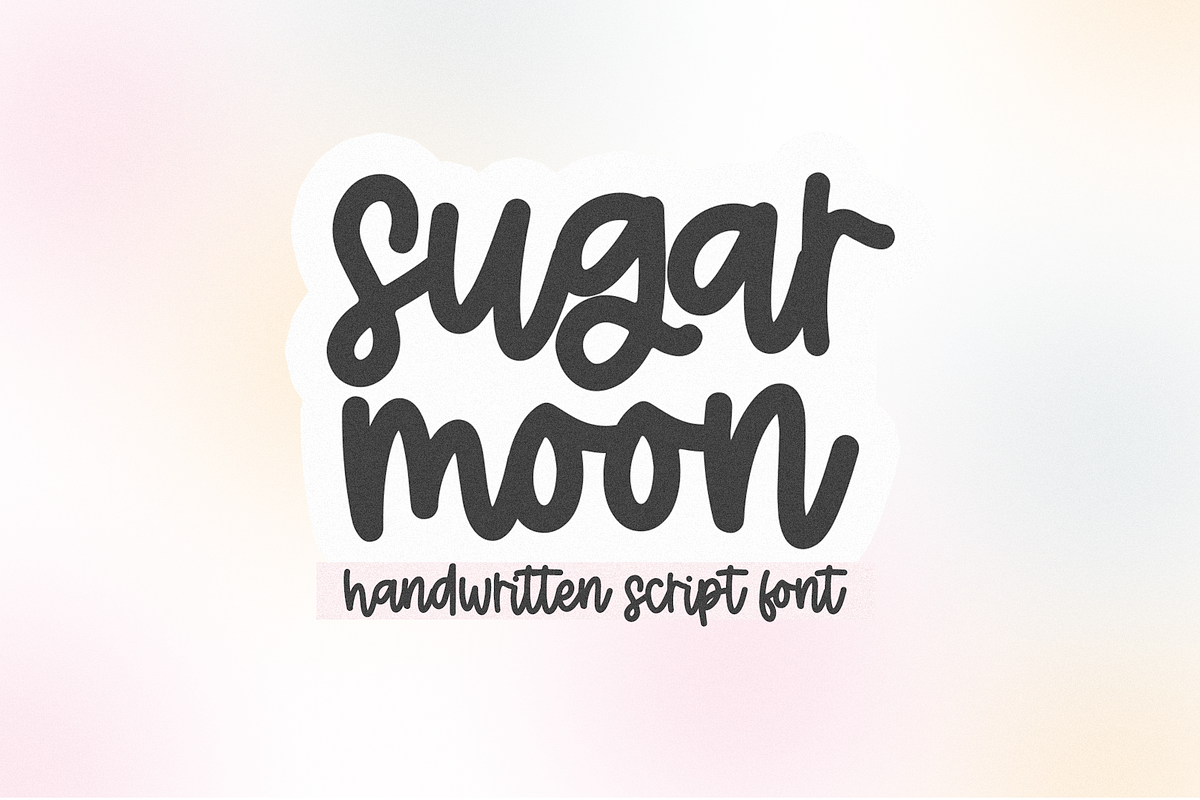
SugarMoon | Cute Script Font Free Download
SugarMoon Font Free Download is a cute and whimsical script typeface that radiates sweetness and charm. With its soft curves and handwritten flow, this font is perfect for greeting cards, baby shower invitations, logos, packaging, social media graphics, and any project that needs a dreamy, feminine touch.
Designed to feel personal and playful, SugarMoon adds a magical, lighthearted vibe to your typography. Whether you're crafting a cute brand, a heartfelt message, or an adorable design for kids, this font makes everything feel extra special. SugarMoon Font Free Download allows you to test it in personal projects before purchasing a commercial license.
Make your designs glow with SugarMoon — the script font that’s as sweet and soft as a lullaby under the stars.